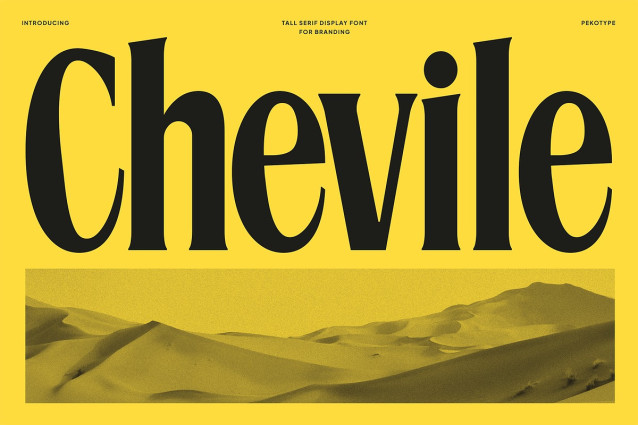
Chelive Font
Chelive Font a bold elegant display font designed to bring power, style, and sophistication into every visual composition. CHEVILE combines strong, confident letterforms with refined curves, creating a typeface that is both commanding and graceful at the same time.
Crafted with a full set of uppercase and lowercase characters, CHEVILE is perfect for branding projects that require a striking yet elegant presence—such as luxury logos, editorial titles, packaging design, fashion promotions, advertising layouts, and modern social media content. Its bold silhouette ensures your message stands out, while its elegant construction gives every word a premium aesthetic.
CHEVILE also includes multilingual support, making it a versatile choice for global creative projects. Whether you’re building a contemporary brand identity or designing high-impact marketing visuals, this font delivers a timeless look with maximum visual authority.
If you’re searching for a display serif that blends bold expression with refined detail, CHEVILE is your perfect match.